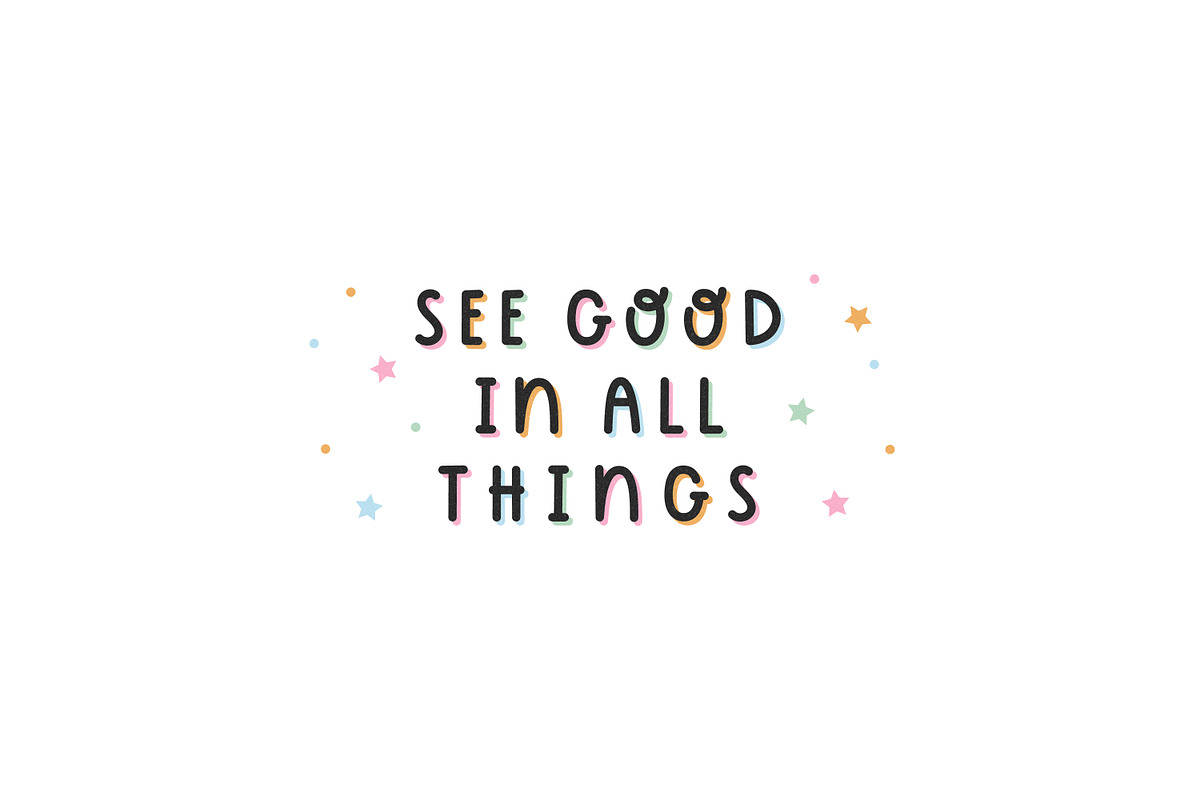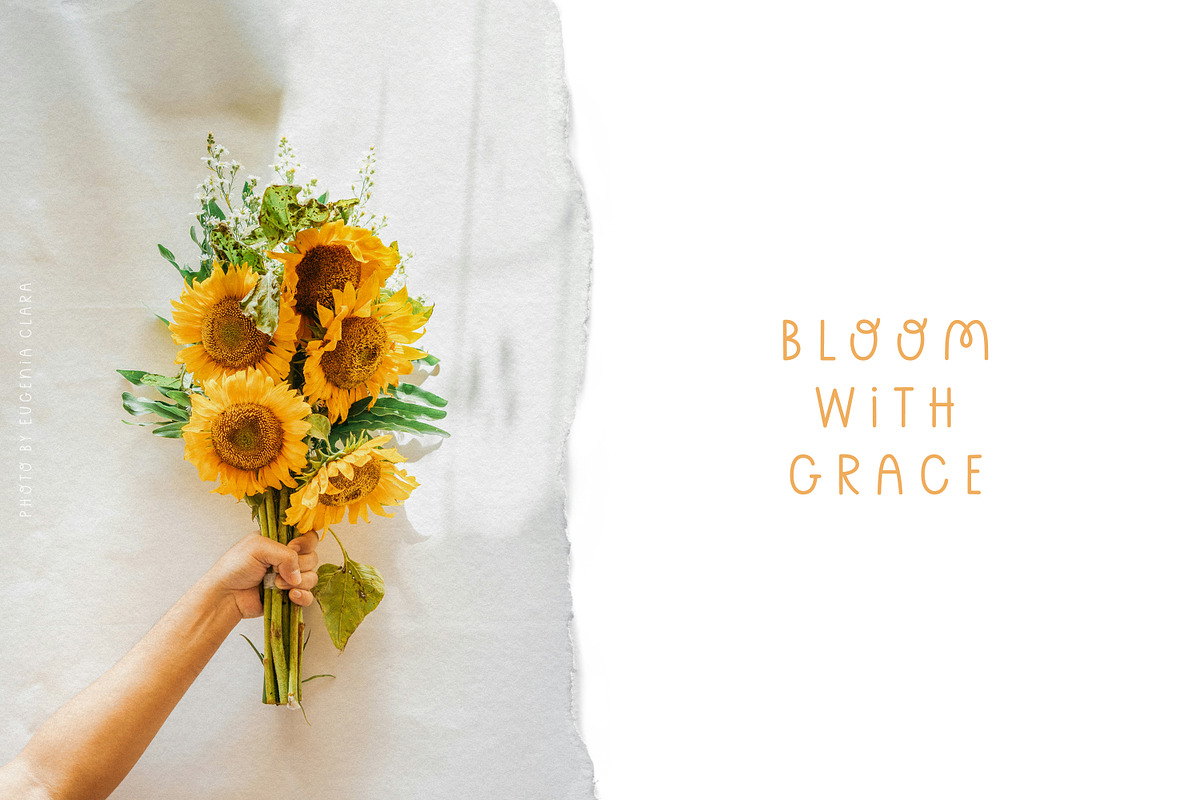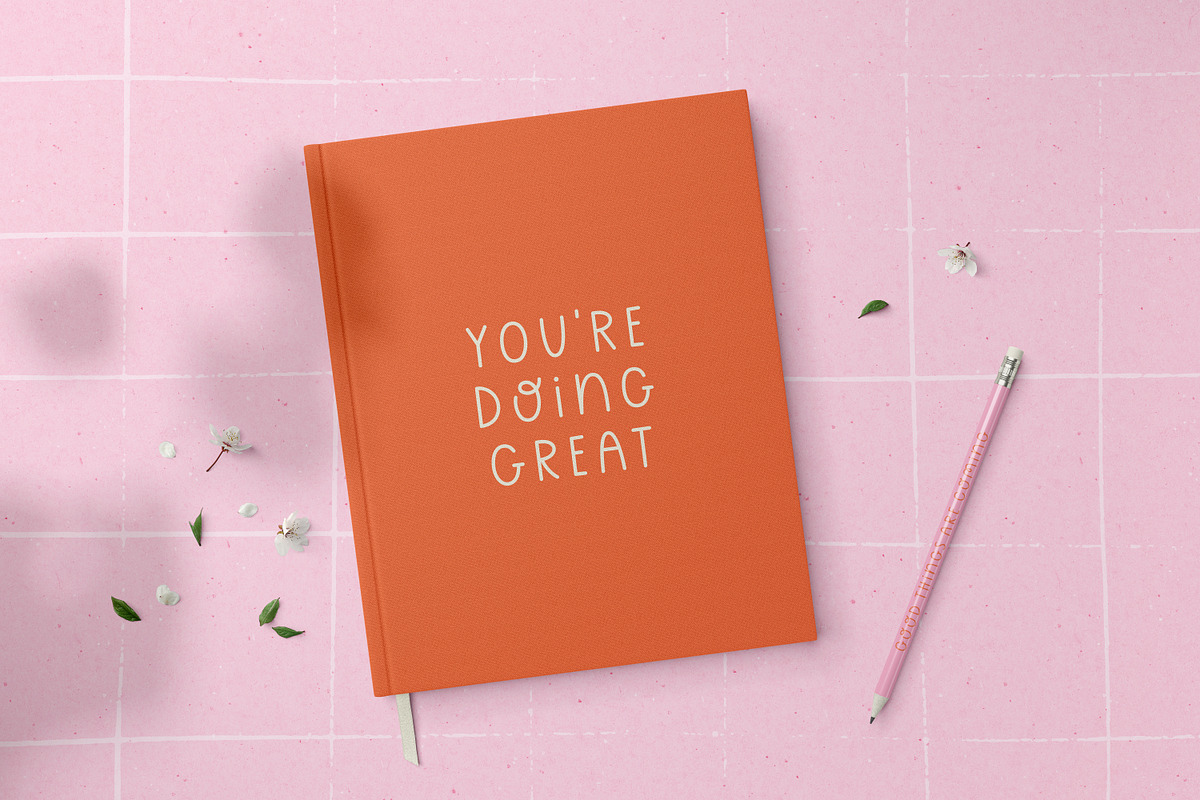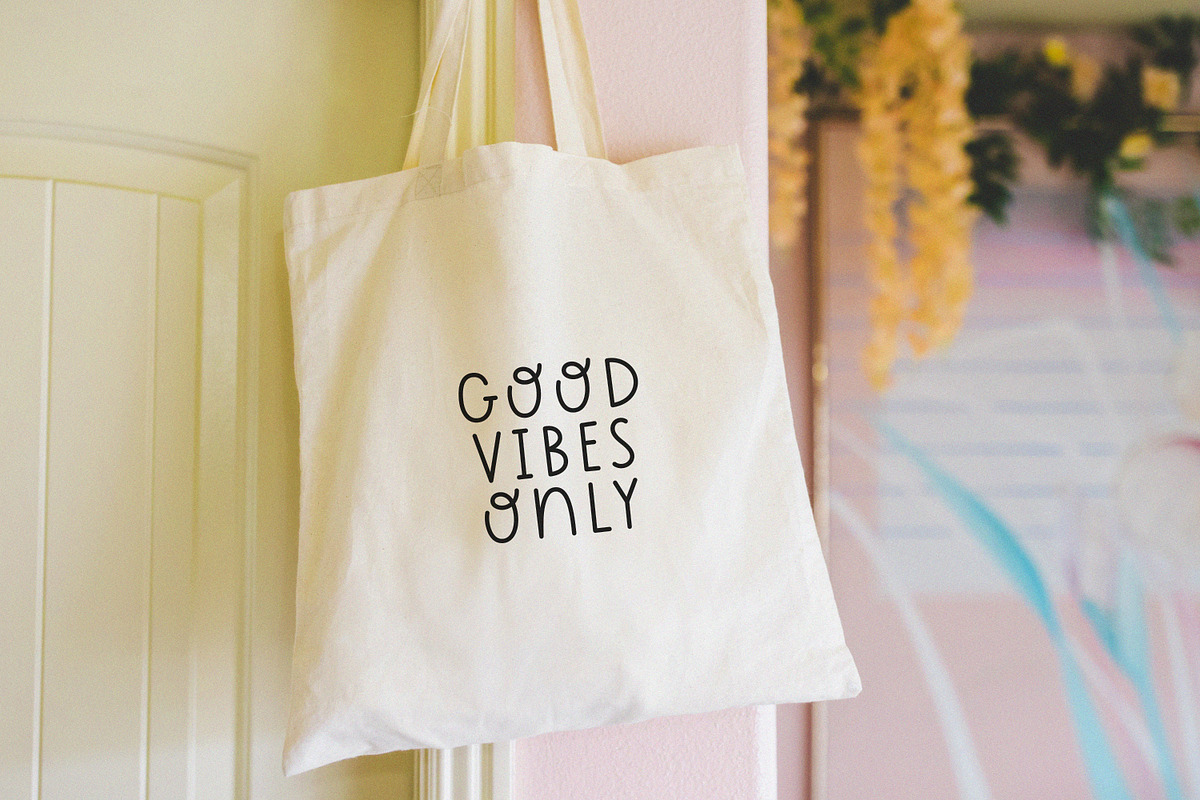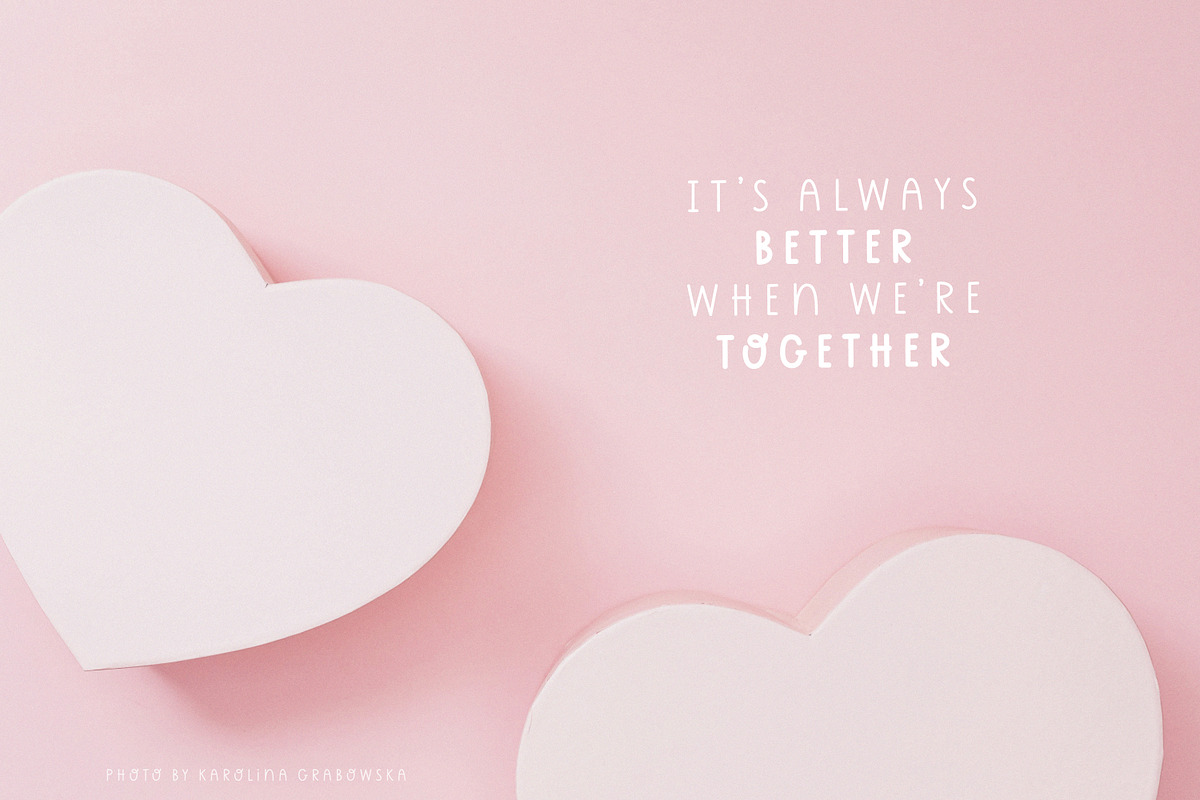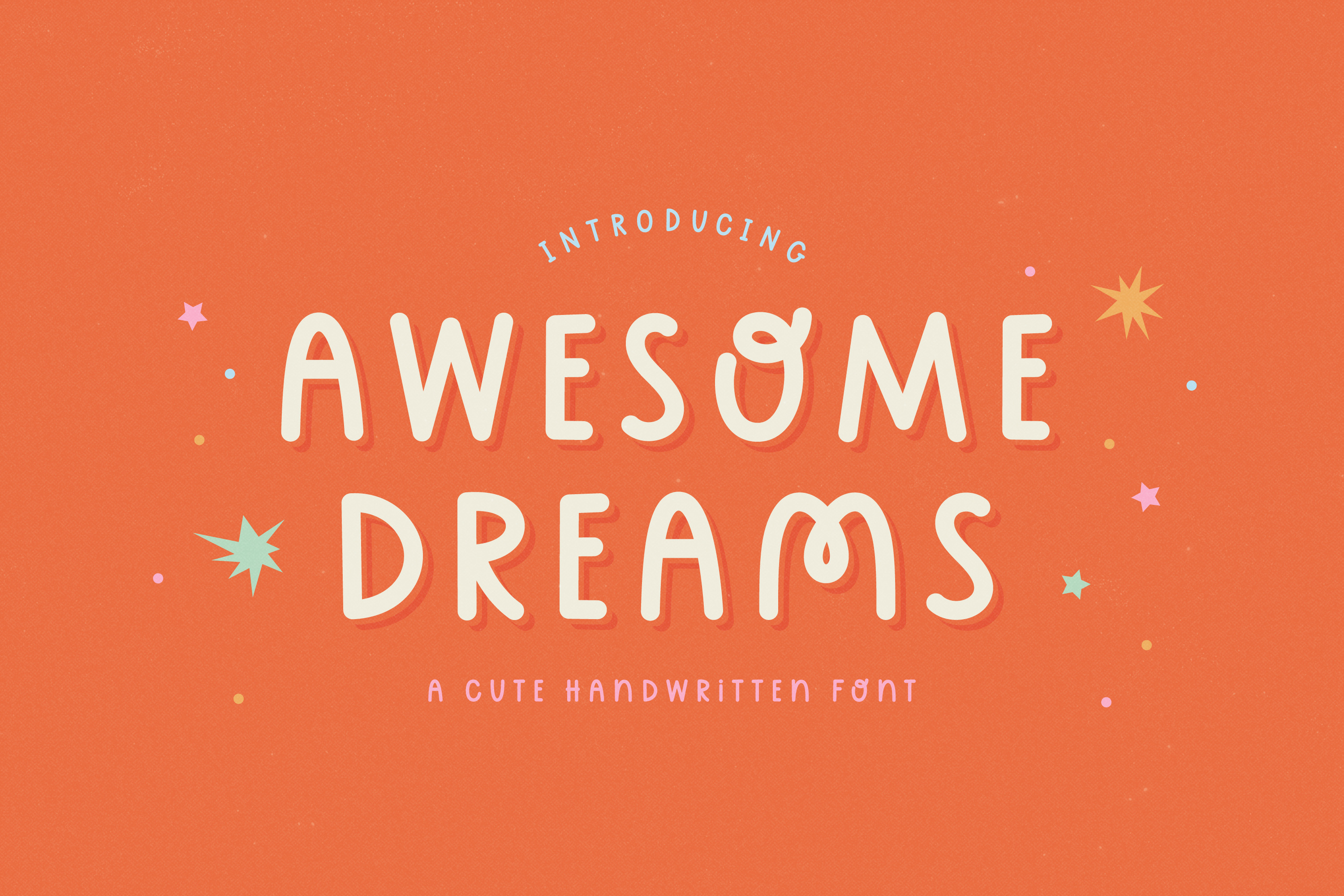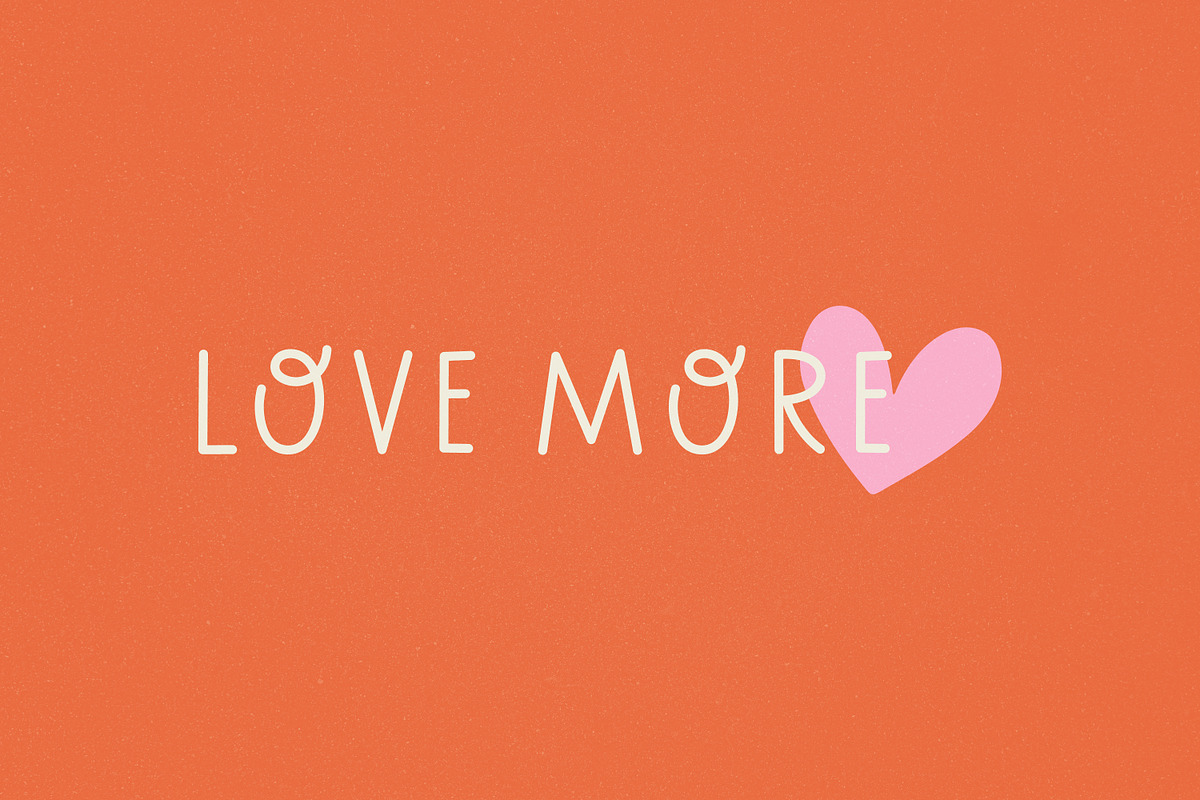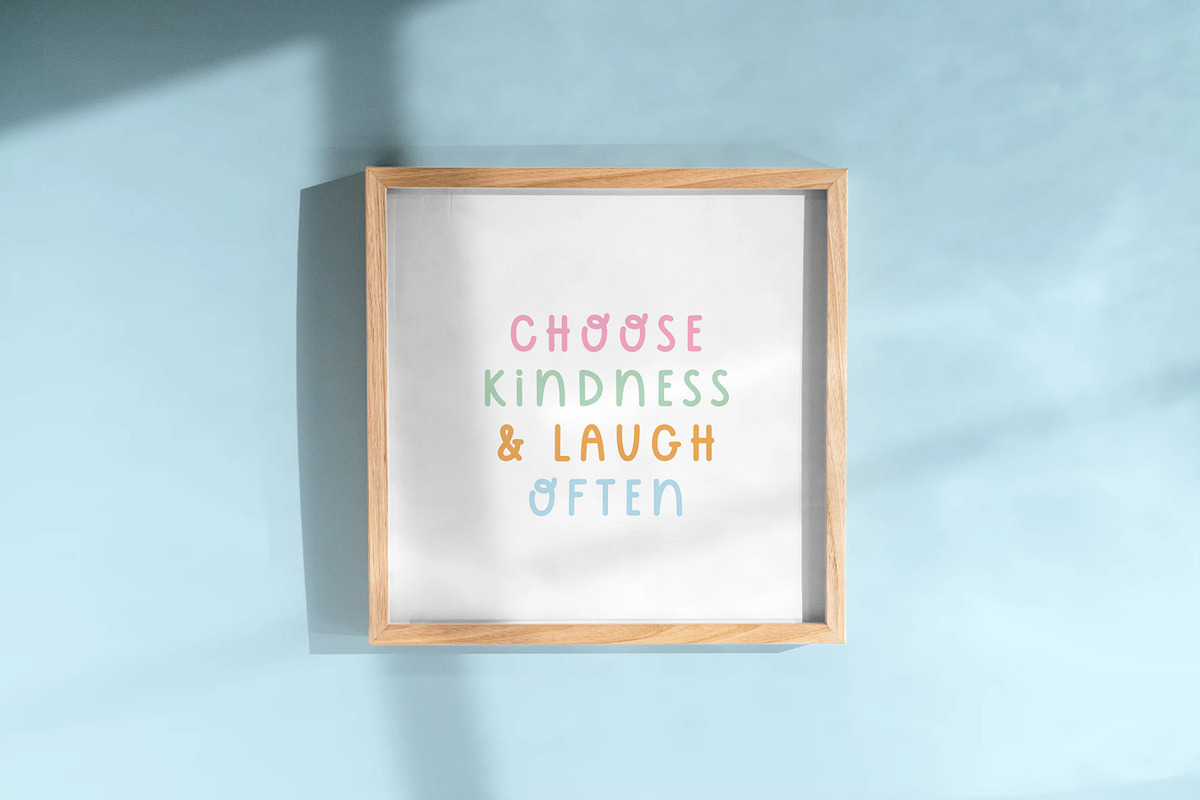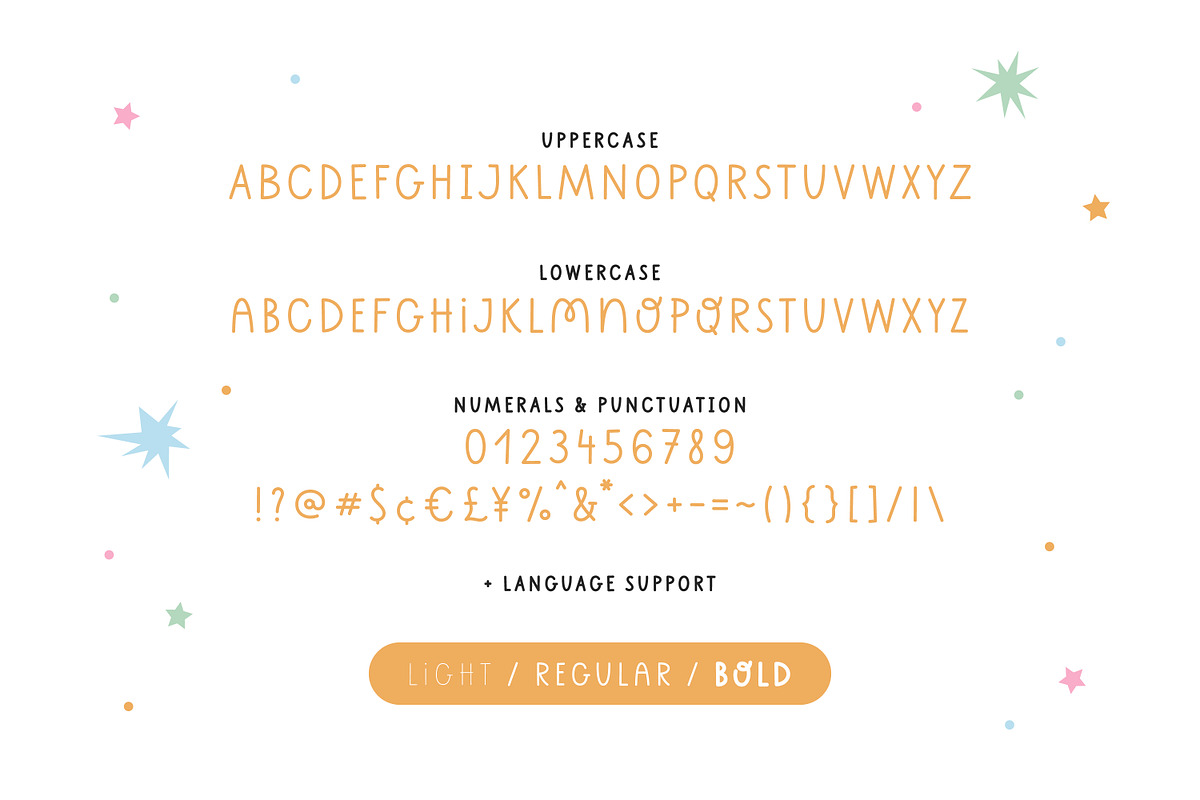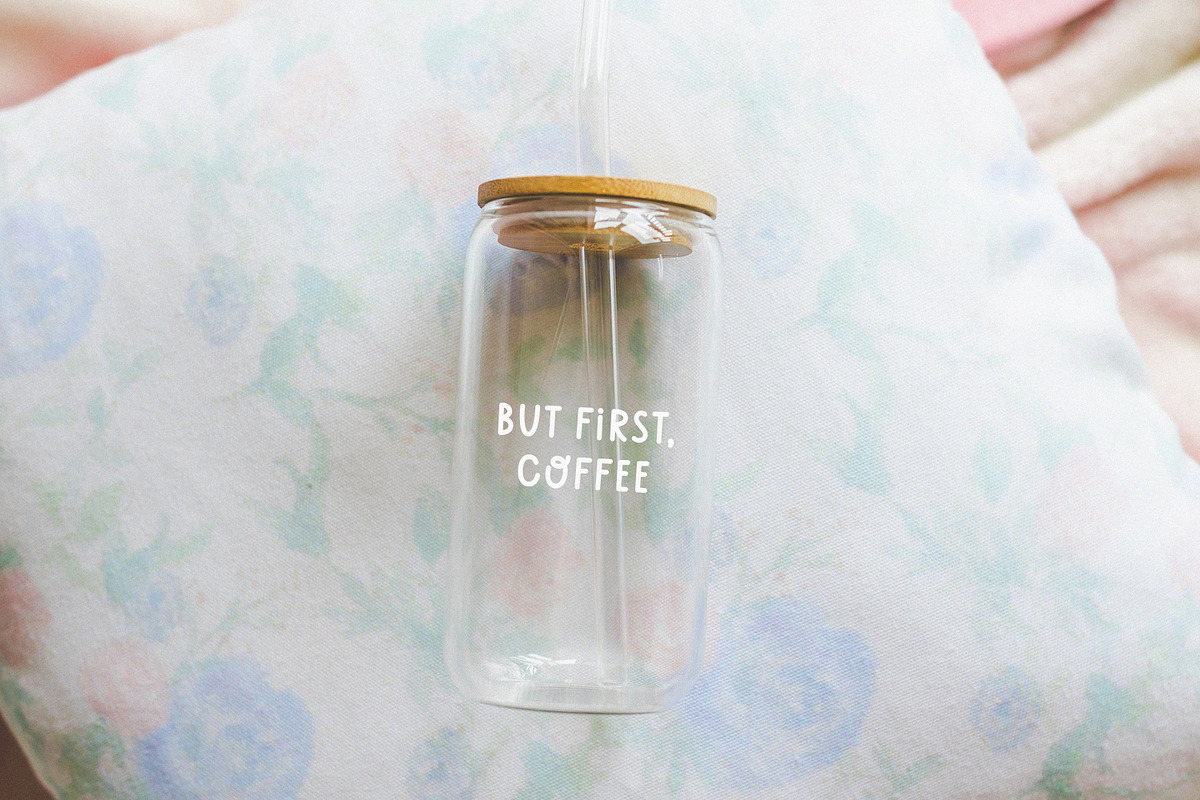
Awesome Dreams - Cute Font
Awesome Dreams is a cute handwritten font in three styles. Perfect for logos, branding, packaging, apparel, cards, posters, stickers, quotes, social media posts and more!